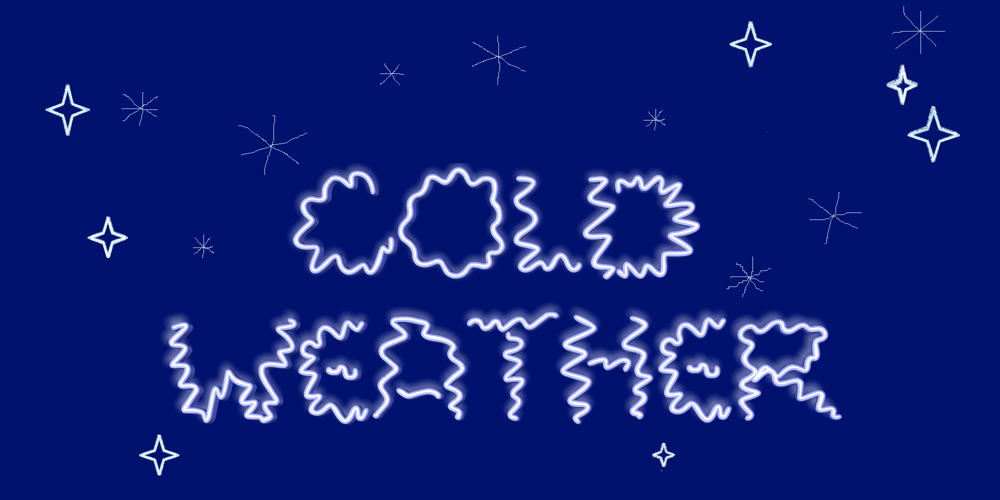
Cozy Sweater
Cozy Sweater font
Cozy Sweater Font Family was designed by Larissa Pergola and published by Larry Nickname. Cozy Sweater contains 1 styles and family package options. It was originally inspired by my winter scarf knitting exploits. I discovered that making wool scarves was generating beautiful patterns and I wanted them to become a source of inspiration for a style. I made a few collages, and they became letters. Other characters came up with ease.It is readable, but long essays are not its main purpose. It is decorative and will look casual and very attractive on any ad as a title or a short phrase. It also demonstrates very good performance in automatic 3D generators, like Xara 3D maker, used in making examples of how this font can be utilised. It was designed to be thin, soft, with the capacity to cover empty space and to create a vibrant environment. Small characters are different from capital letters, they are stylistic alternates. Some letters are slightly ominous or dynamic, others create a soothing feeling. Using several colors make it shine, but it is complex, it looks good in monochromatic compositions as well.